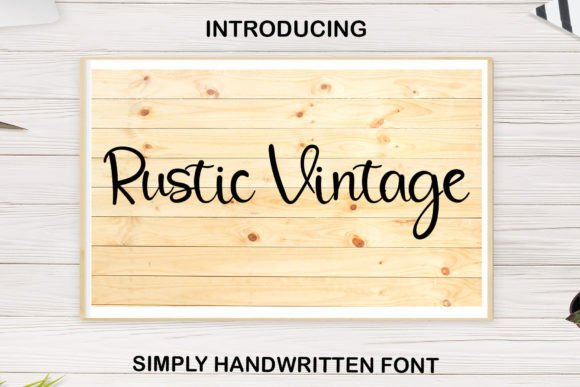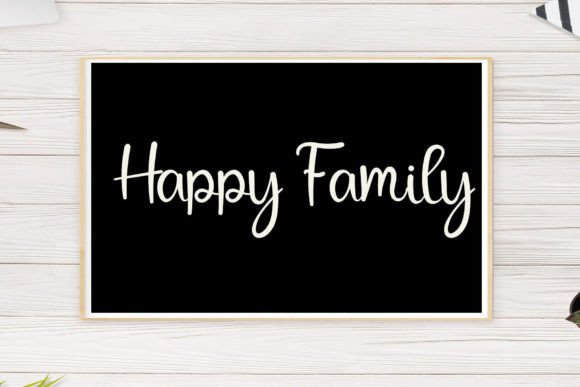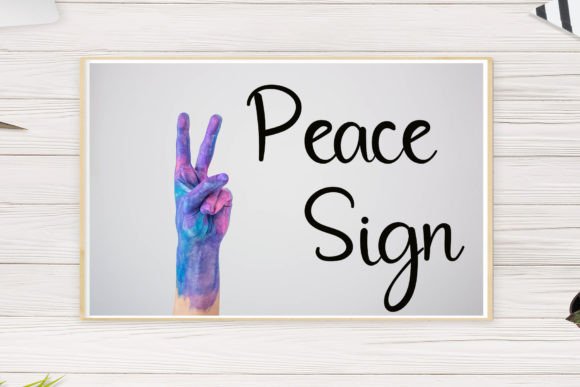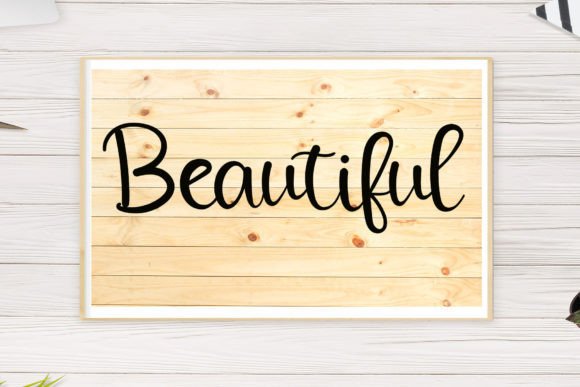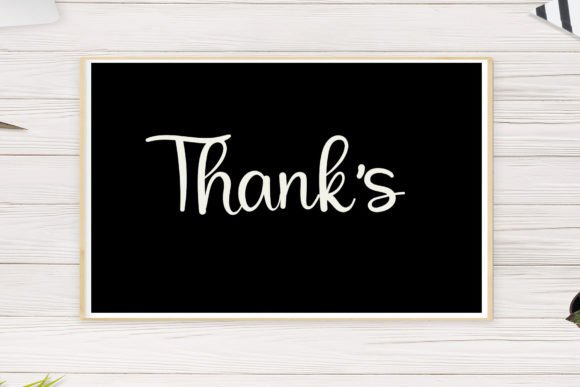
About Rustic Vintage Font
Introducing Rustic Vintage, a sweet and beautiful handwritten font that features characters dancing along the baseline. This font is crafted to add a luxury spark to any design project you wish to create.
The charm of Rustic Vintage lies in its handwritten and rustic style. The characters flow elegantly along the baseline, giving your text a unique and personalized touch. Whether used in digital designs or print materials, this font is designed to enhance the visual appeal of your projects.
For various design projects, Rustic Vintage becomes a delightful choice. Whether you’re working on branding, invitations, posters, or any creative endeavor, the font adds a touch of sweetness and beauty.
In branding, Rustic Vintage offers a unique and memorable option. Its handwritten and vintage-inspired charm contributes to a brand identity that stands out with a touch of luxury.
Invitations adorned with Rustic Vintage carry a sense of elegance and sweetness. The font’s style adds a personal and romantic touch, making your invitations more visually appealing and engaging.
In posters and other design projects, Rustic Vintage’s rustic and beautiful feel enhances the overall visual appeal. The font is designed to make your creative projects stand out with a touch of vintage charm.
Rustic Vintage is carefully crafted to be a delightful addition to various creative applications. Whether you’re working on digital designs or print materials, this font is meant to elevate your projects with a touch of sweetness and beauty.
In conclusion, Rustic Vintage is a sweet and beautiful handwritten font that adds a luxury spark to your designs. Choose Rustic Vintage to bring a unique and personalized touch to your branding, invitations, posters, and more, creating visually stunning and memorable outcomes.